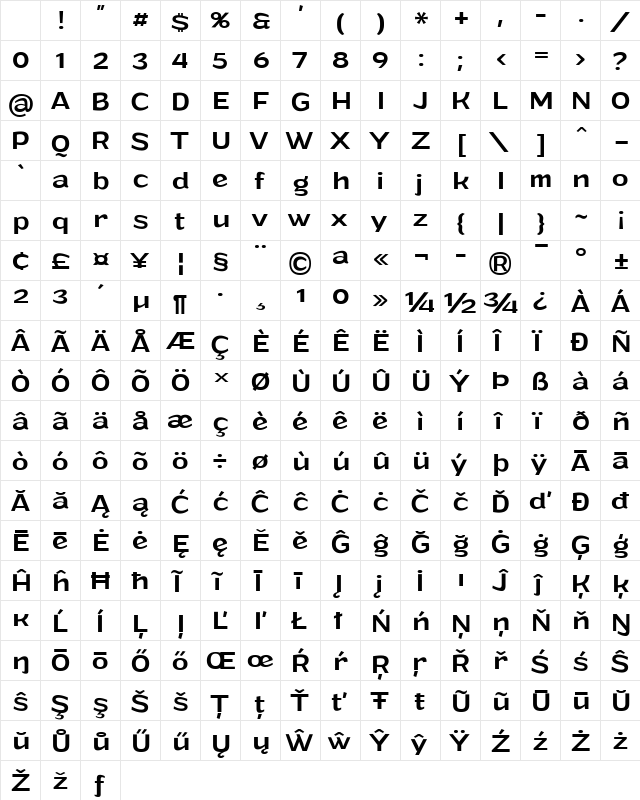
Complete Grandi PERSONAL USE Medium glyph index. Displaying only characters natively supported by Grandi PERSONAL USE Medium font.
Grandi PERSONAL USE is a composed and adaptable typeface that performs quietly and consistently across a wide range of design contexts.